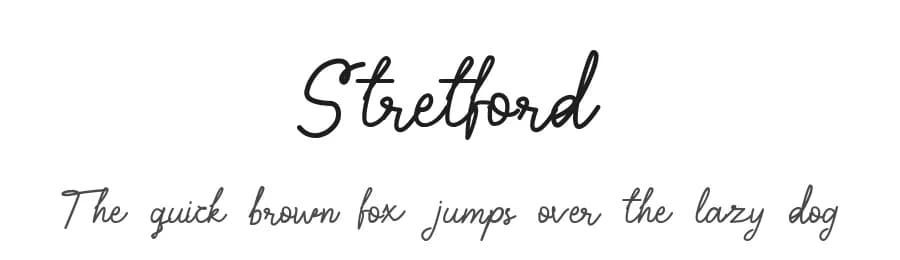
About Stretford Font
Stretford is a script & handwritten font designed by Ahgo Studio. It includes 95 glyphs, a regular weight, TTF (TrueType) format, and 102 languages. Stretford is free to download; check the license details on this page before commercial use. Script & handwritten fonts like Stretford work best for wedding invitations, greeting cards, signatures, and elegant branding.
Stretford Font is a script font that shines as a display or heading face. Pair it with a clean sans-serif or serif font for body text β the contrast creates a clear hierarchy while the two styles stay balanced and easy to read.
Stretford Font